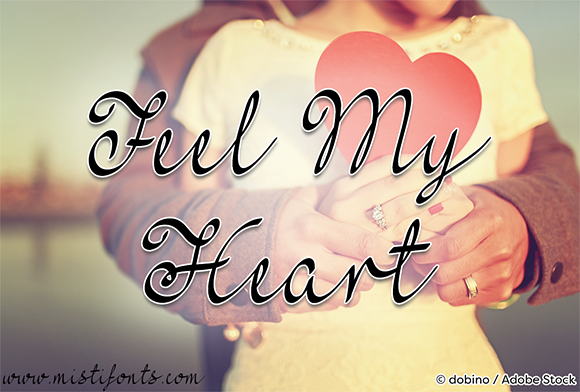
HomeScript FontsFeel My Heart Font Script Fonts Feel My Heart Font FacebookXPinterestWhatsApp About Feel My Heart Font Feel My Heart is a romantic calligraphy font that is perfect for your craft and design projects! DOWNLOAD NOW People also explored Cute Rustic Font My Best Shot Font Perfect Orchid Font Sheikha Benjamin Outlander Brush Script Font Sirius Font Bsting Font Polen Pink Tinge Font 312 0 TagsFeel My Heart Font Previous articleReally Awesome FontNext articleKazincbarcika Font LEAVE A REPLY Cancel reply Comment: Please enter your comment! Name:* Please enter your name here Email:* You have entered an incorrect email address! Please enter your email address here Website: Save my name, email, and website in this browser for the next time I comment. Personal Use Free Good Times Personal Use Free Read more about this font Propaniac Personal Use Free Read more about this font Septhine Personal Use Free Read more about this font Gdynia Personal Use Free Read more about this font BLOG Top 7 Google Fonts Alternatives for Faster and Privacy-Friendly Web Design (2025) Top 7 Google Fonts Alternatives for Faster and Privacy-Friendly Web Design (2025) When it comes to web typography, Google Fonts has long been the go-to... Free vs Paid Fonts: Why Investing in Premium Fonts Is Worth It The 10 Best Handwriting Fonts to Add Personality to Your Designs Best Fonts for T-Shirt Design – Top 2025 Picks